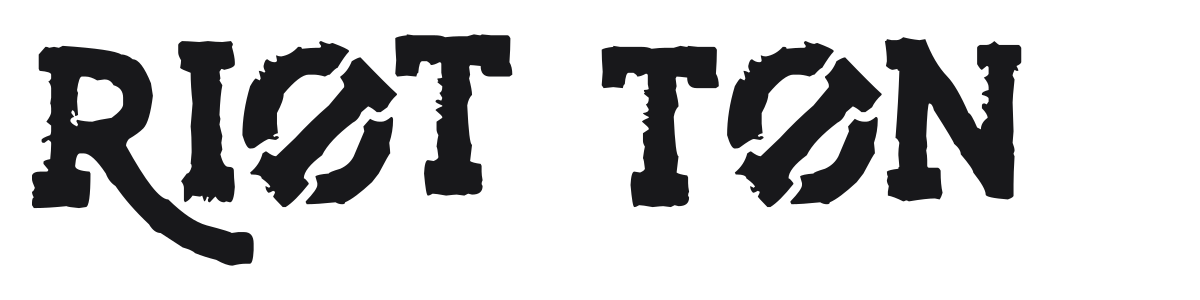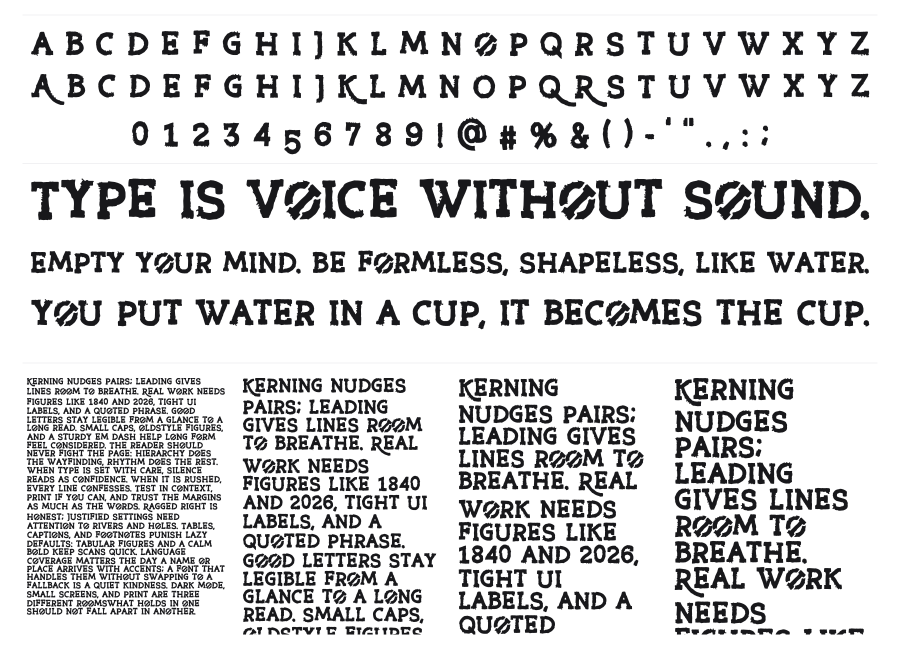
Riot Ton
Riot Ton is a heavily distressed slab-serif built for maximum grit. The underlying slab structure is wide and sturdy, but the worn, crumbling texture on every stroke is what defines the character. It works across punk music, streetwear branding, event posters, and anywhere a rough edge is part of the message.